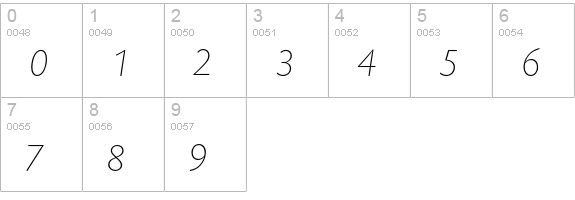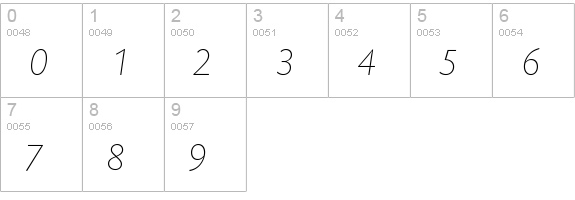
Today Sans Serif Extra Light Italic Font Details
Today Sans Serif Extra Light Italic is a refined, elegant, italic variant in the Today typeface family \xE2\x80\x94 well suited to elegant body text, refined sub-headings, and luxury branding.
Today Sans Serif Extra Light Italic is a modern and sleek typeface that effortlessly combines elegance and readability. With its refined curves and delicate strokes, this font exudes a sense of sophistication and professionalism, making it perfect for a wide range of design projects. The Extra Light Italic variant of Today Sans Serif adds an extra touch of elegance and grace to any text. Its subtle slant brings a sense of movement and dynamism, making it ideal for titles, headings, and other attention-grabbing elements. Whether used in print or digital media, this font captivates the eyes and adds a touch of distinction to any design. What makes Today Sans Serif Extra Light Italic even more appealing is that it is available for free download at FontsMarket.com. This means that designers, creatives, and typographers can easily access this exceptional font without any cost. It's a fantastic opportunity to elevate your designs with a premium font without breaking the bank. Designed to enhance legibility, Today Sans Serif Extra Light Italic is versatile and adaptable. Its clean lines and optimized spacing ensure that text remains clear and easily readable, even at smaller sizes. This makes it an excellent choice for everything from body text in magazines to website content and beyond. Whether you're designing a logo, creating a brochure, or crafting a website, Today Sans Serif Extra Light Italic will effortlessly elevate your project to new heights. Its contemporary yet timeless design lends itself to a wide variety of applications, ensuring that your message is delivered with style and clarity. Experience the beauty and versatility of Today Sans Serif Extra Light Italic for yourself. Download it freely at FontsMarket.com and unlock a world of possibilities for your next design endeavor. With its combination of elegance, readability, and cost-effectiveness, this font is a must-have for any designer's toolkit.